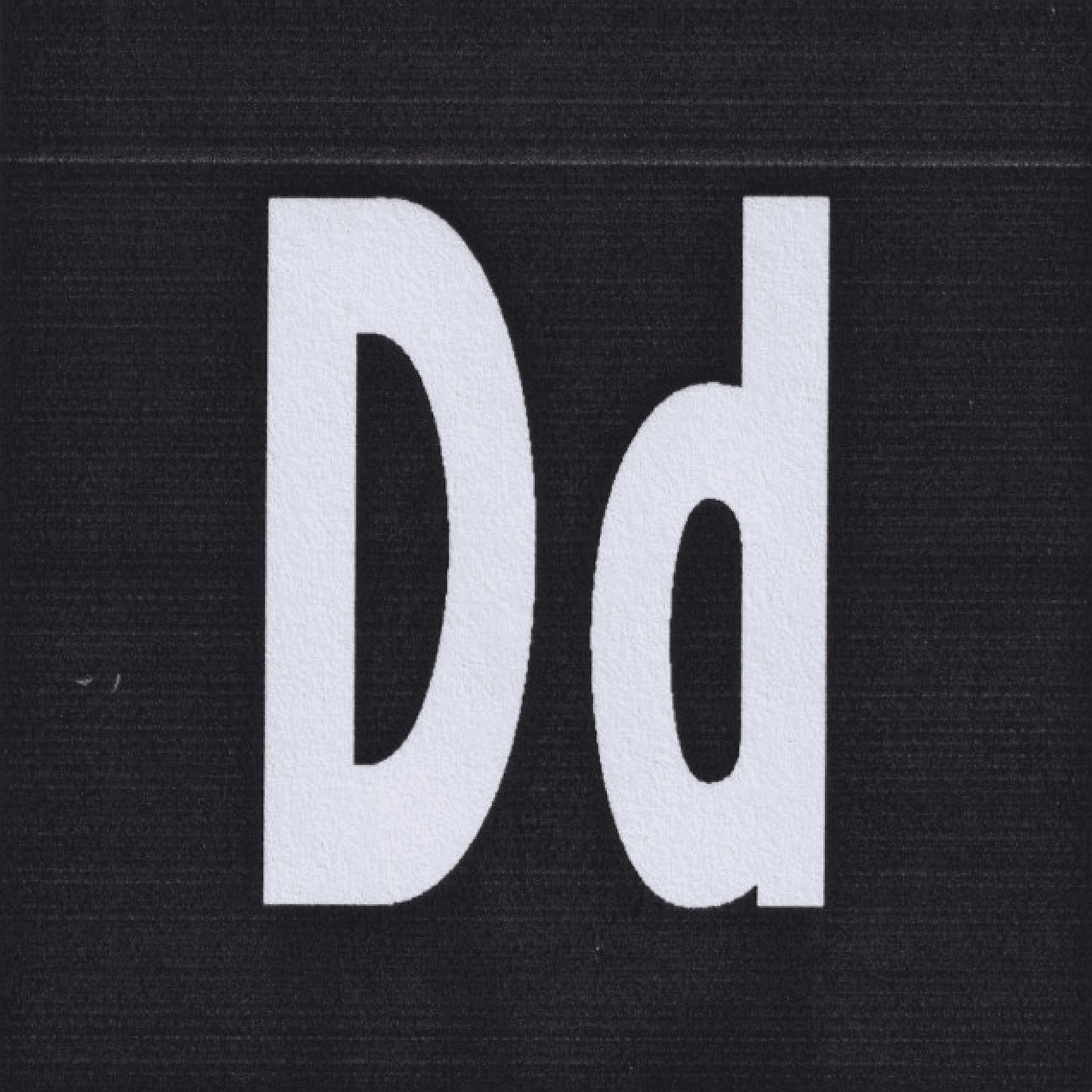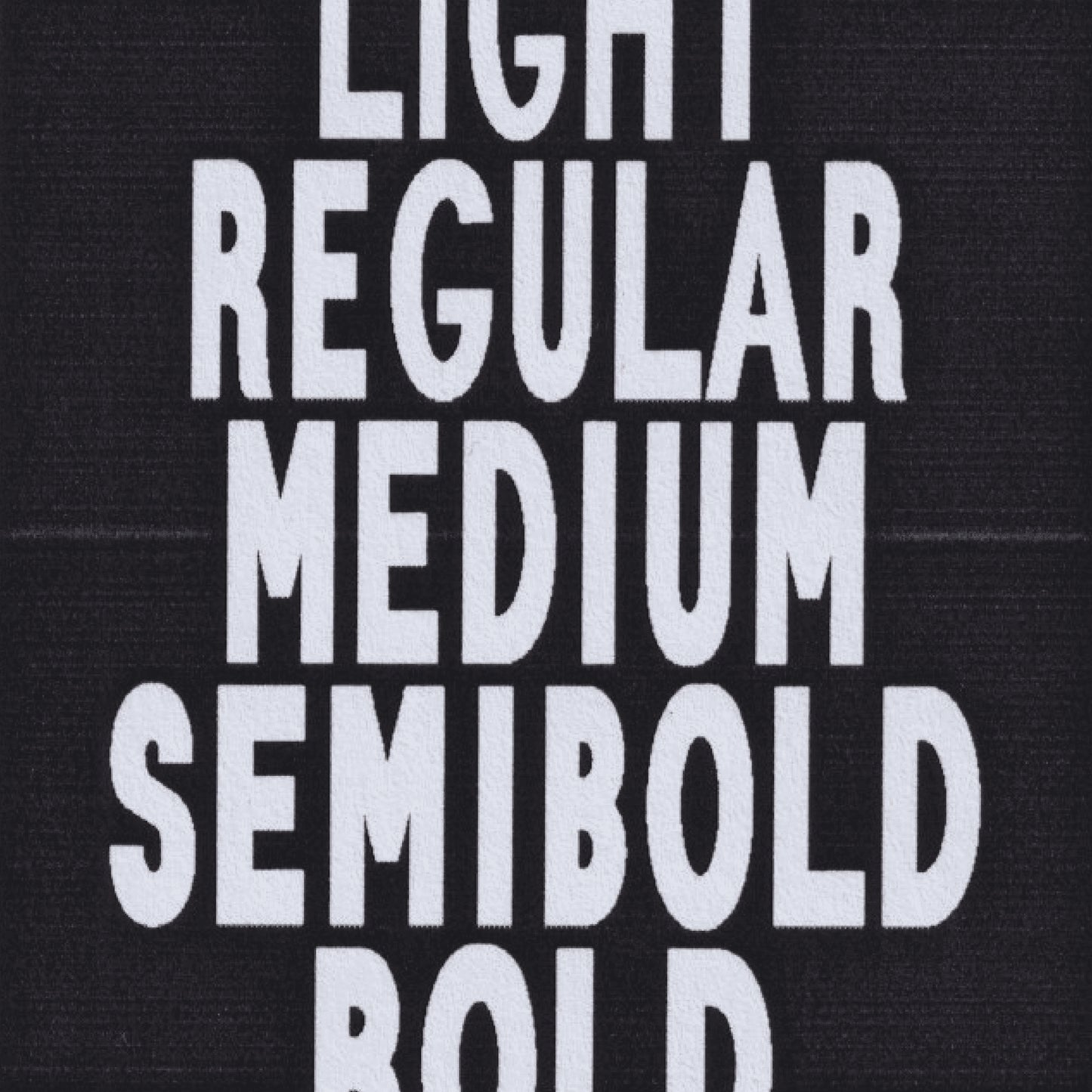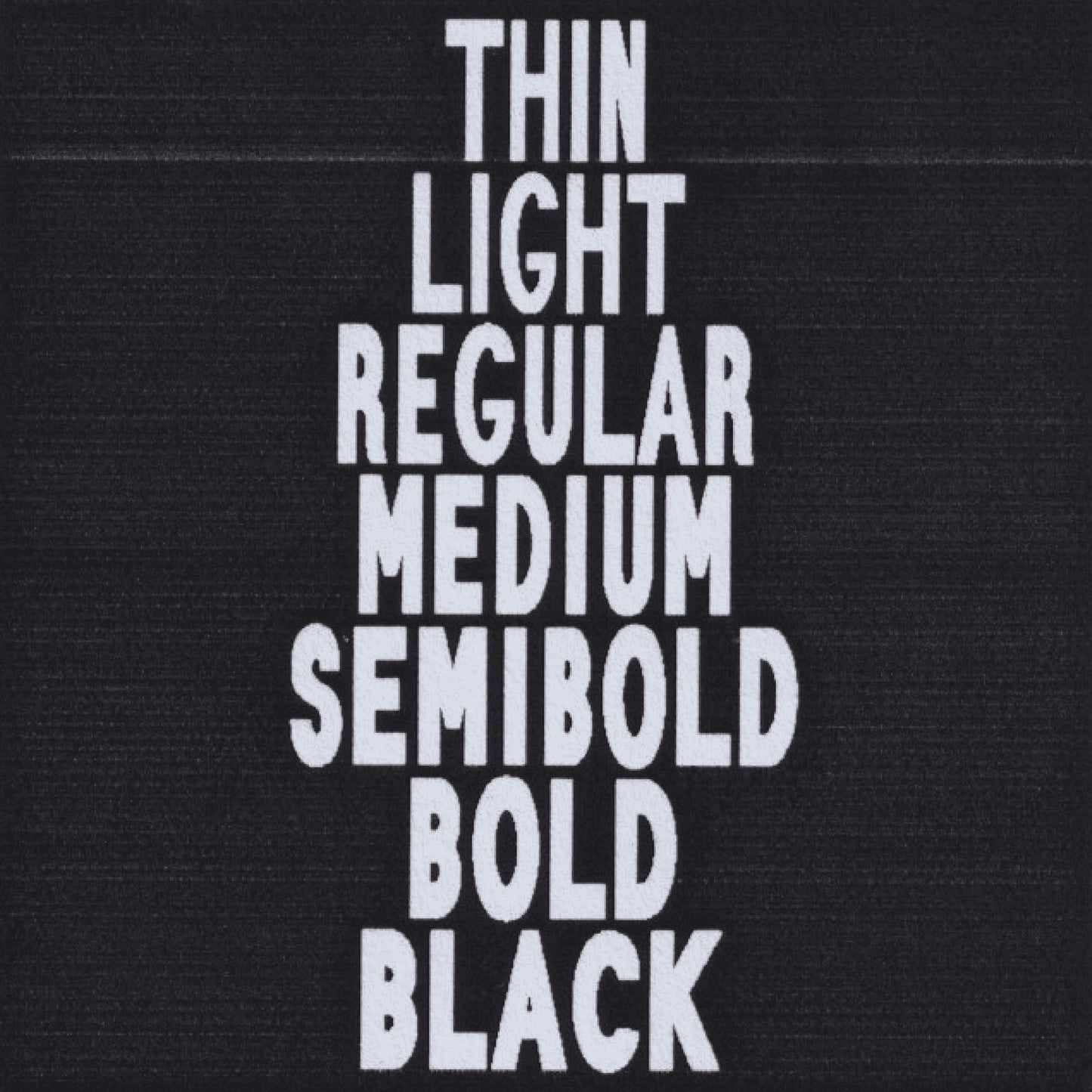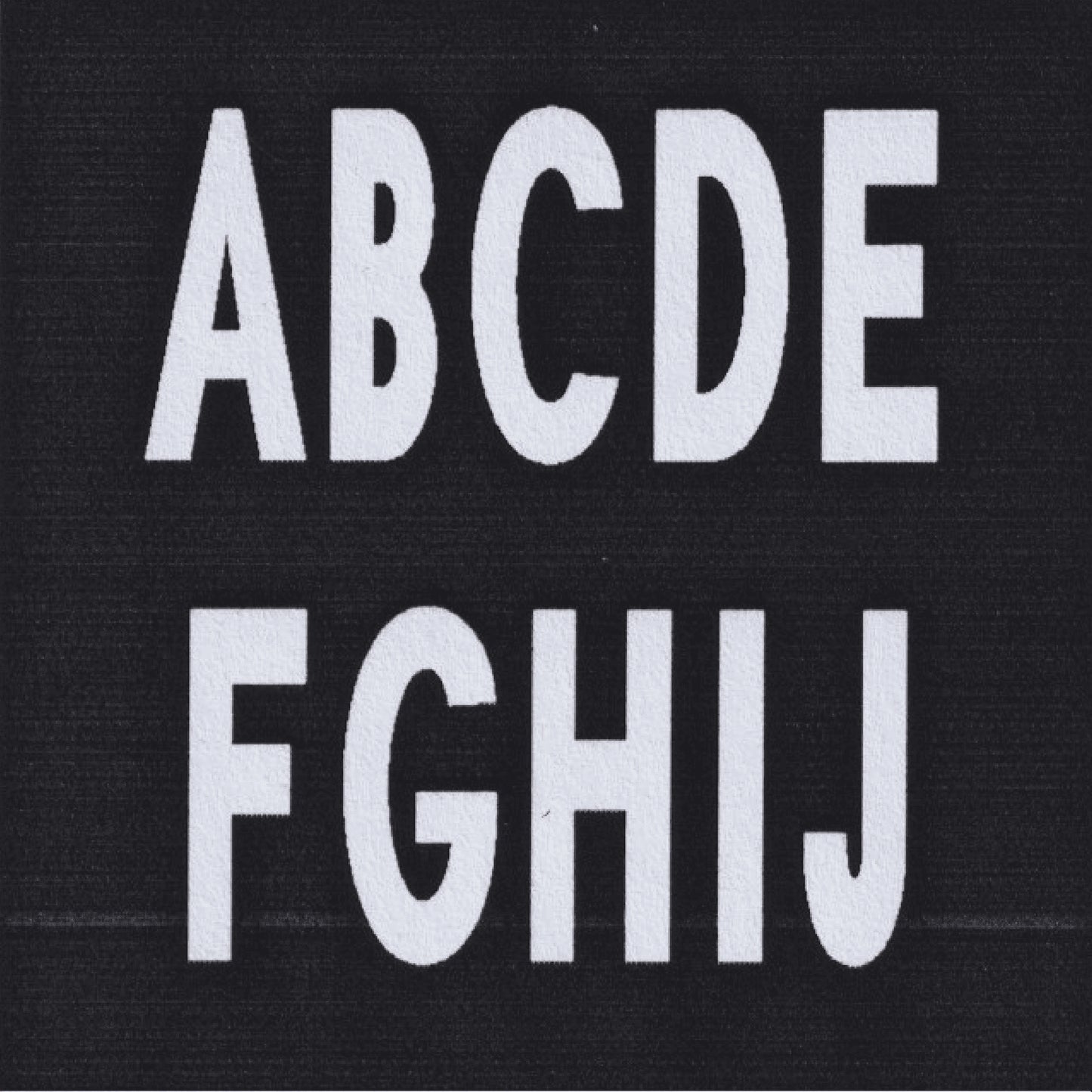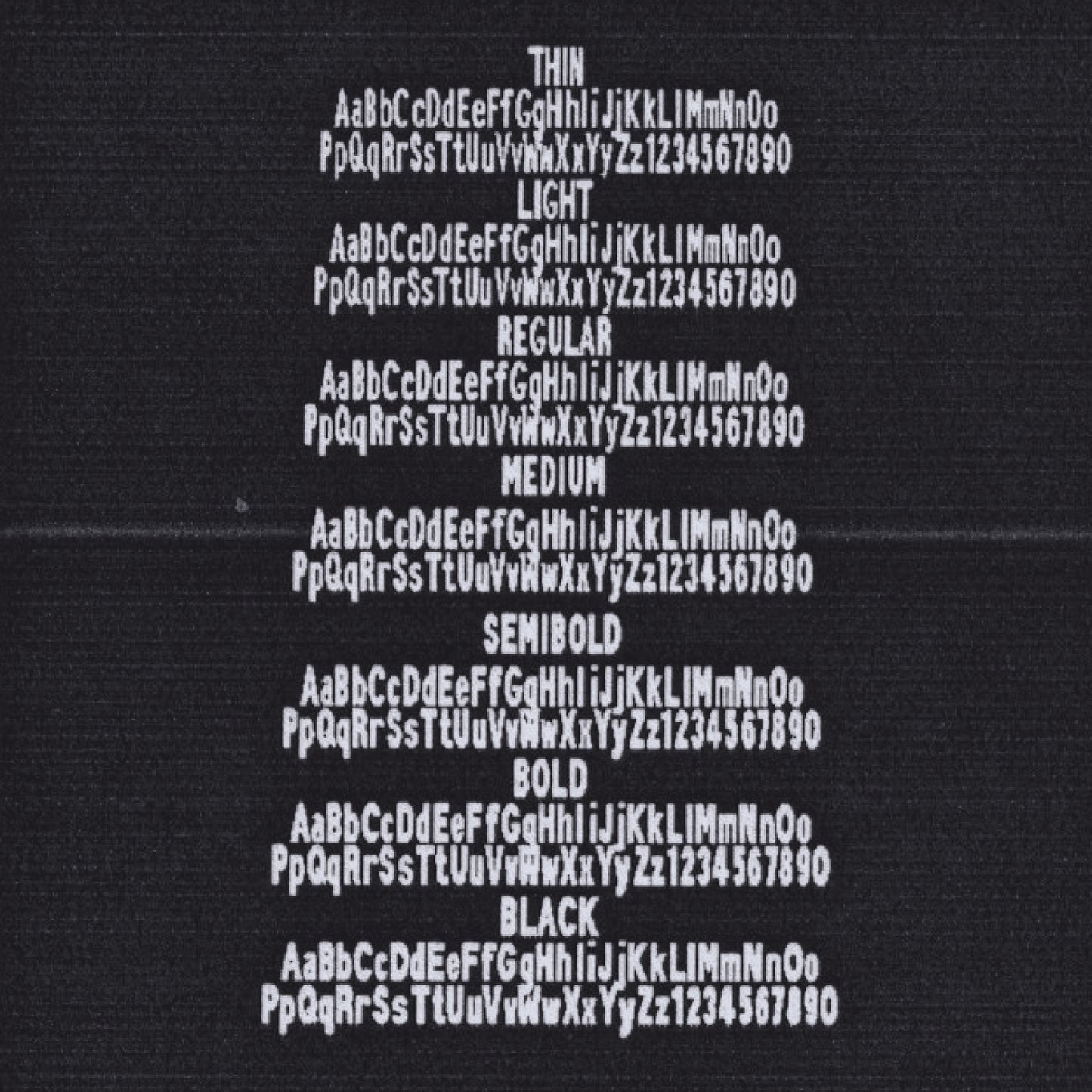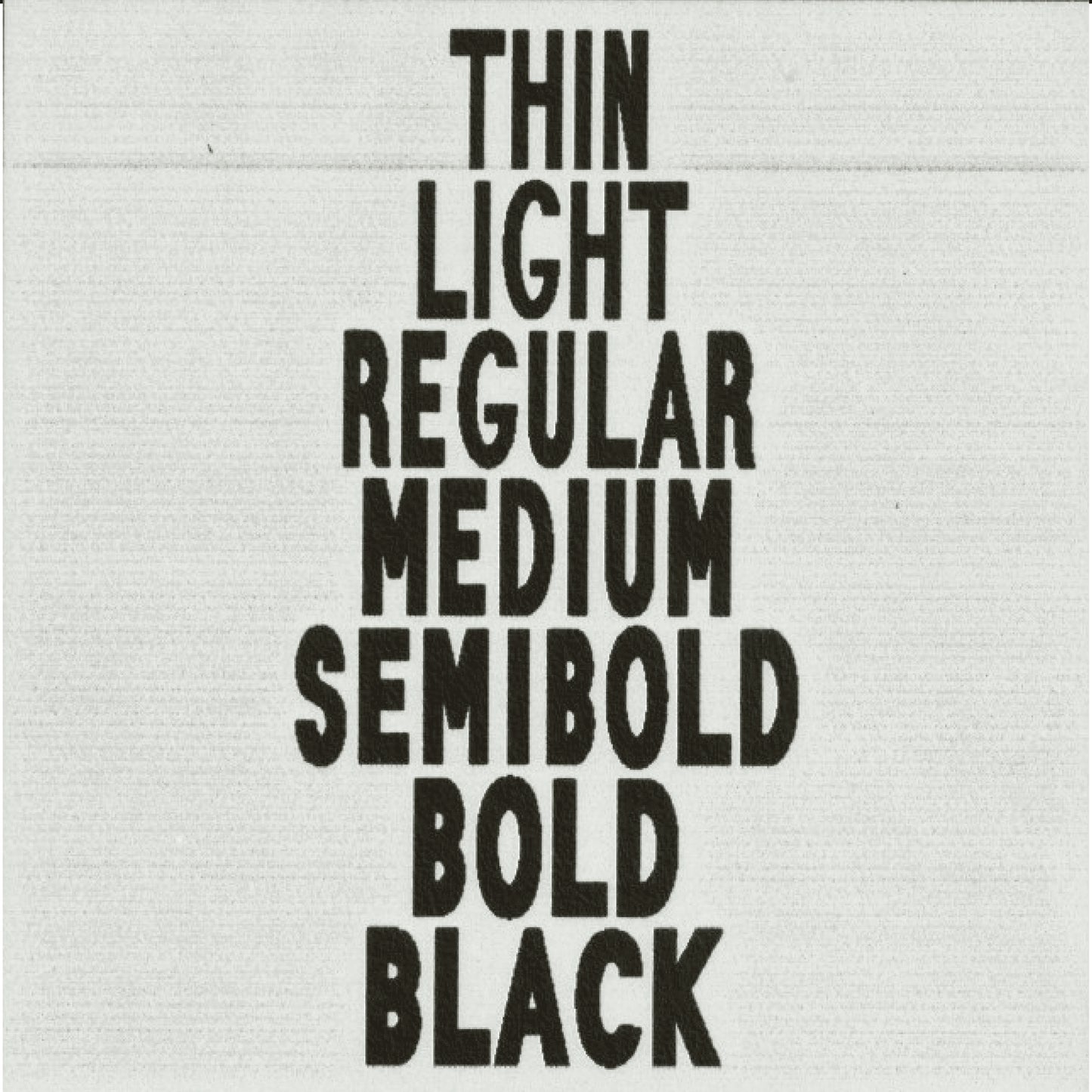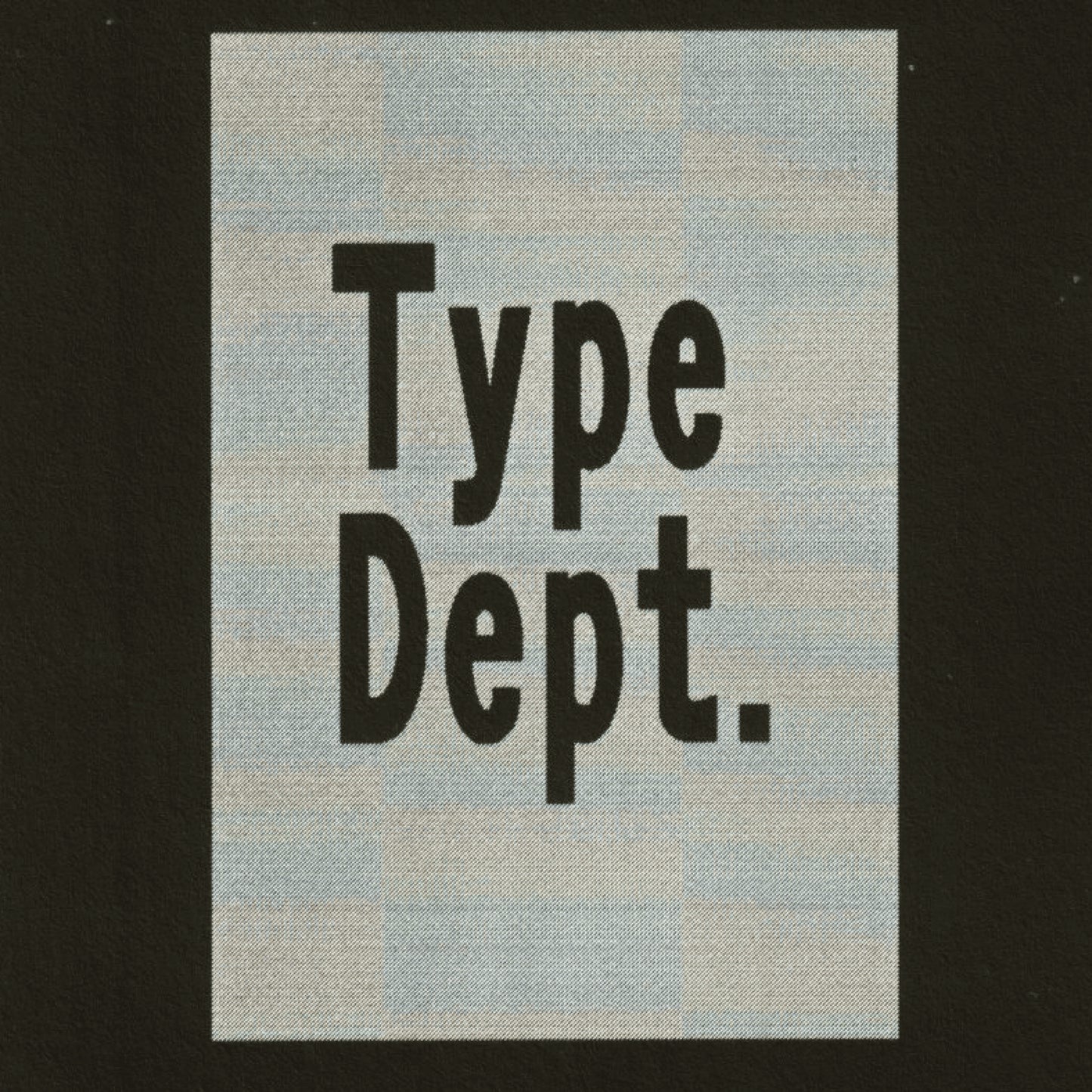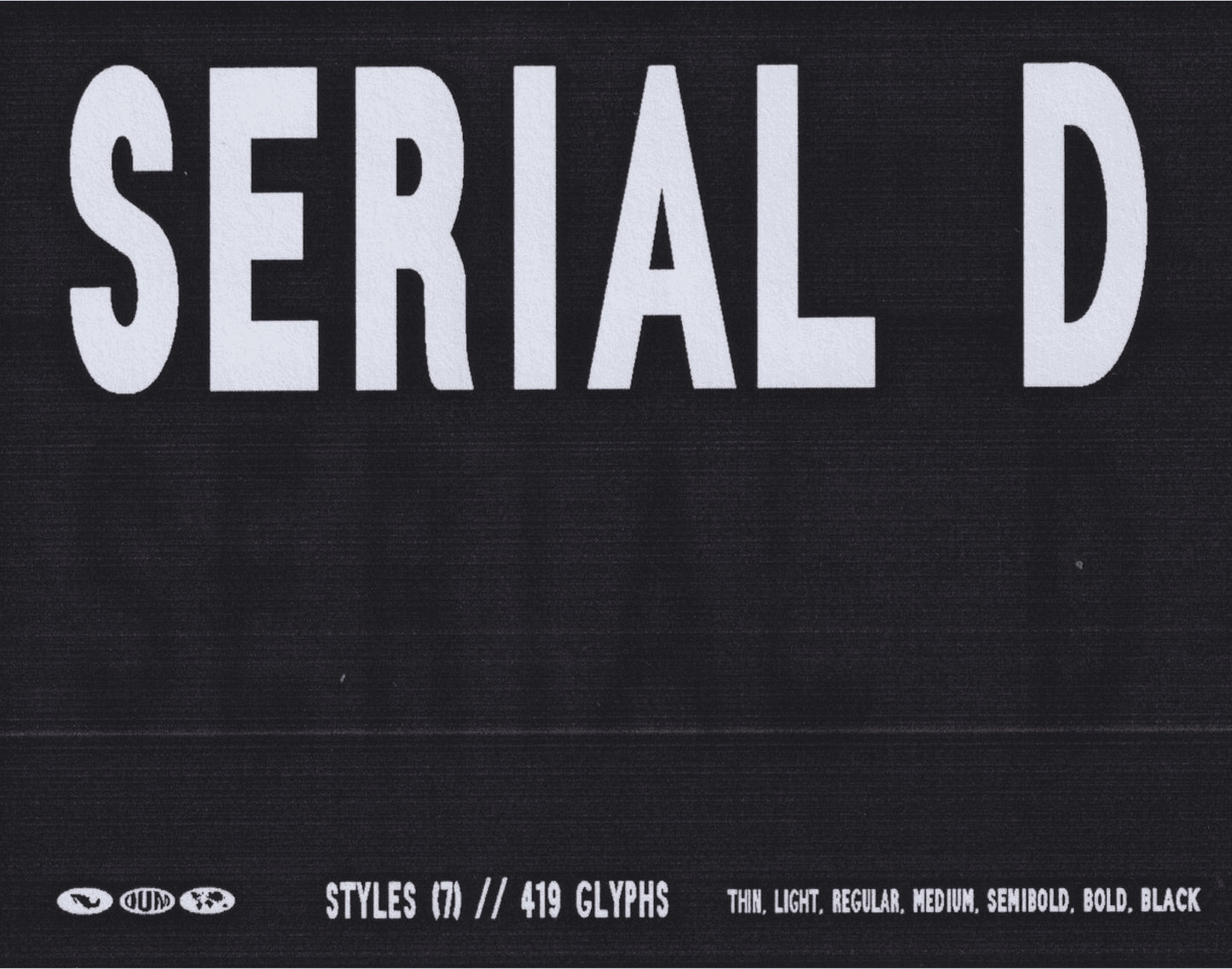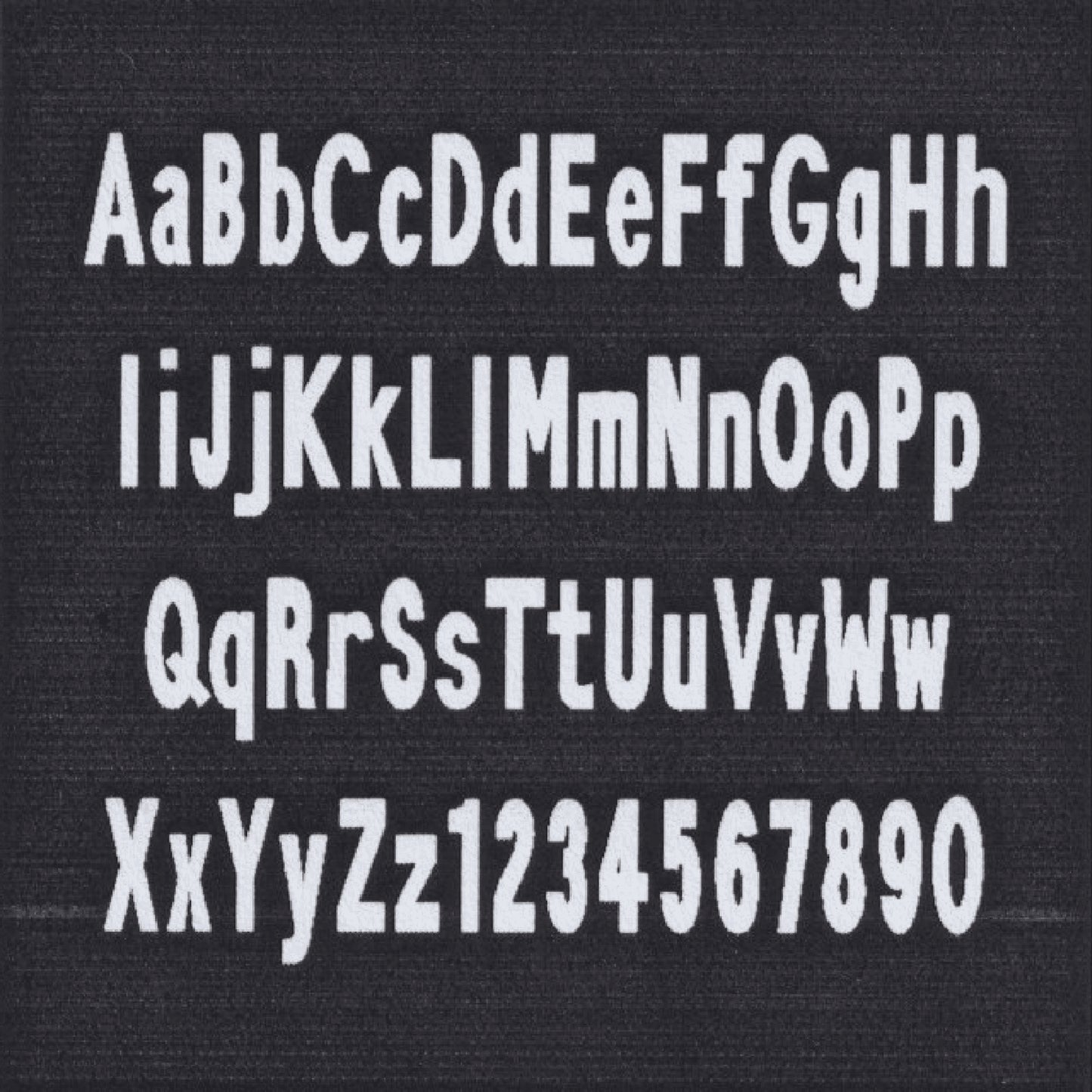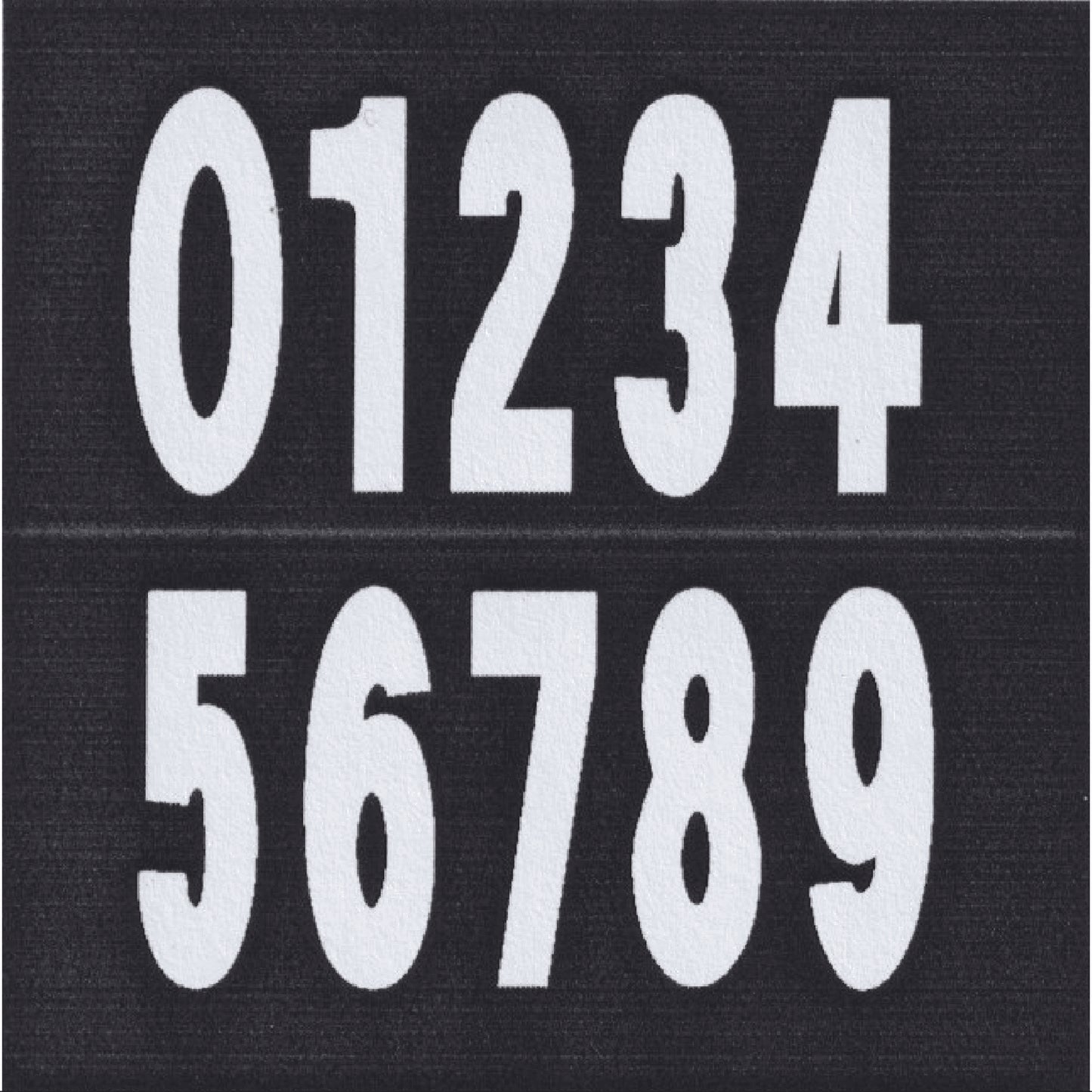
Serial D
Mario Julian Gutierrez
Serial D is the fourth typeface in the Serial family, but the first to be drawn, serving as the foundation for Serial A. Serial D maintains sharp corners, giving it a distinct, structured feel while preserving the same dimensions as Serial A. Designed to make an impact and command attention, it stands out wherever it is used.
Available in seven different weights, along with Slanted versions for added dynamism.
— 7 STYLES
— TOTAL GLYPHS: 421 GLYPHS
— UPERCASE, LOWERCASE, LIGATURES, OPEN TYPE FEATURES WITH ALTERNATES AND SUBSTITUTES